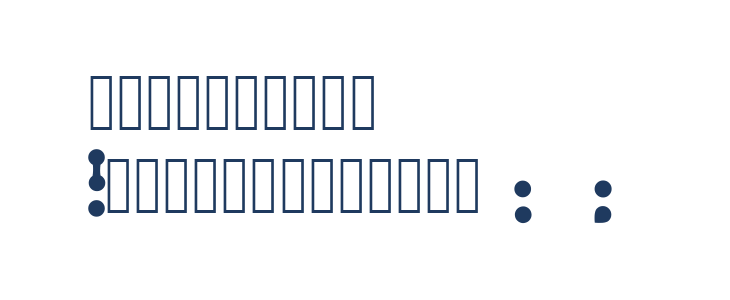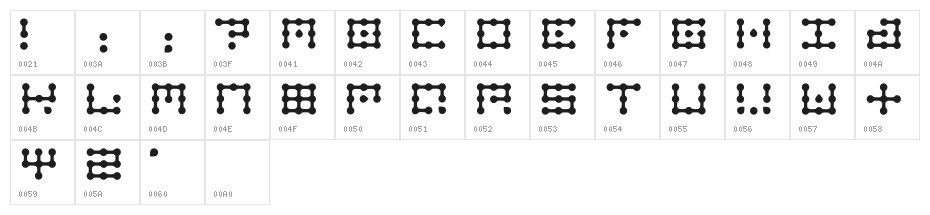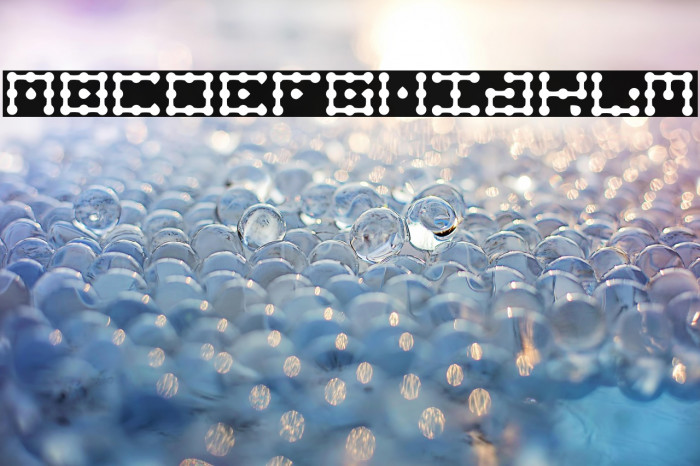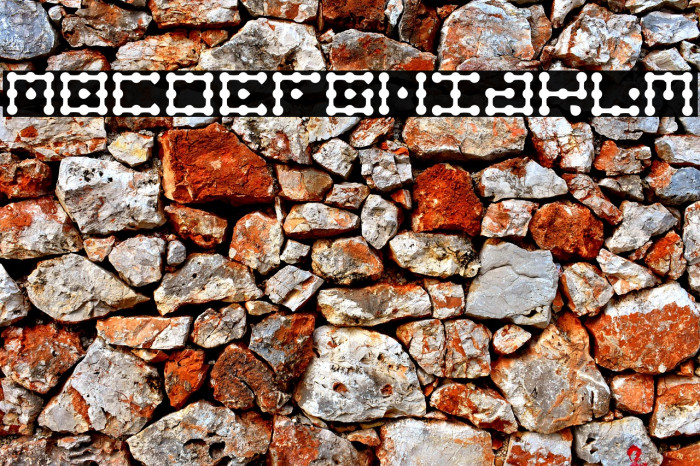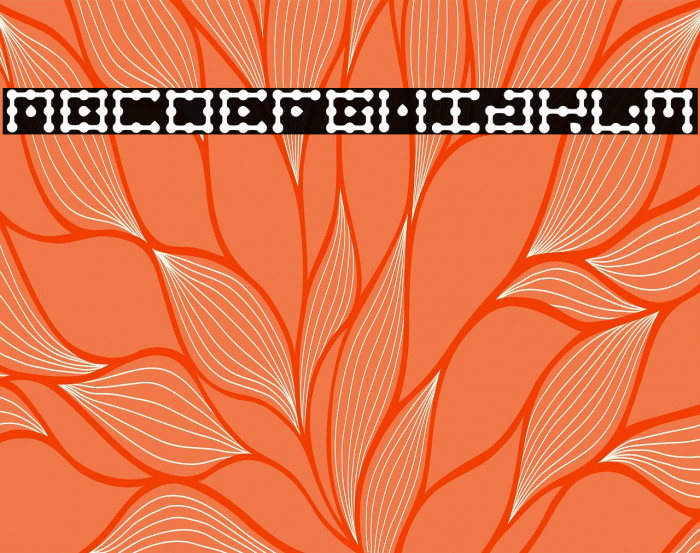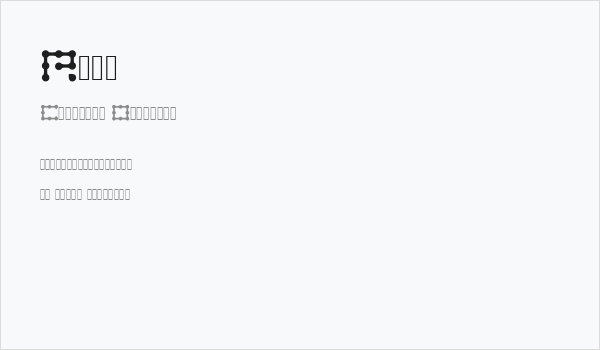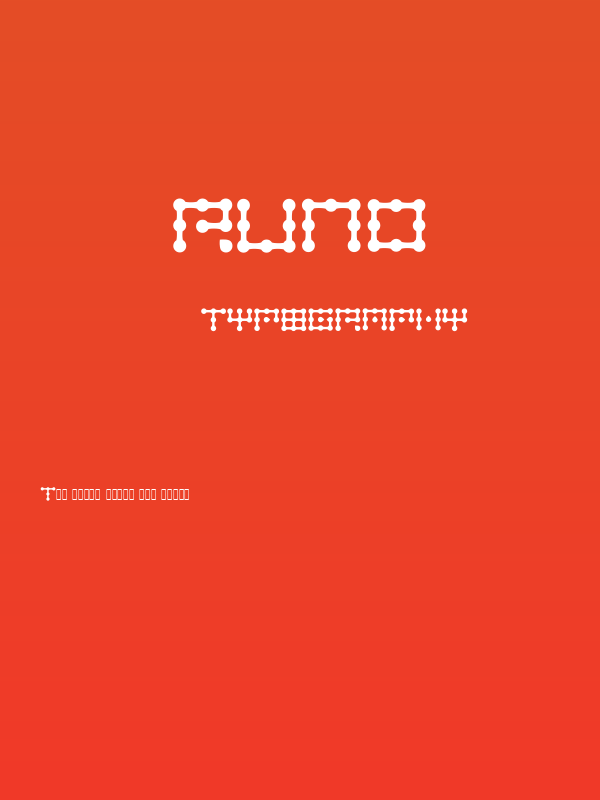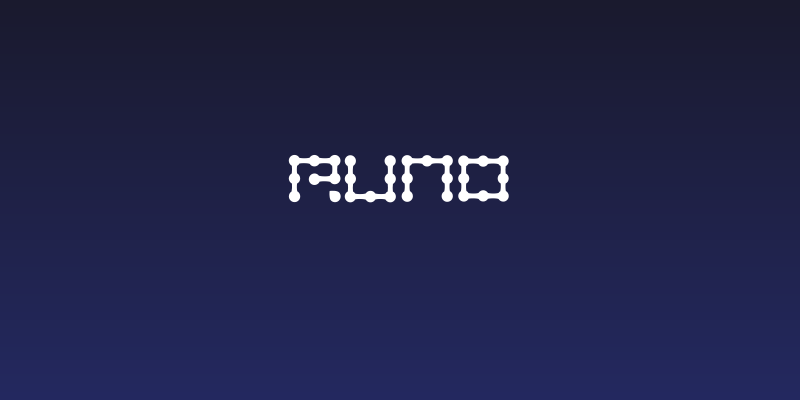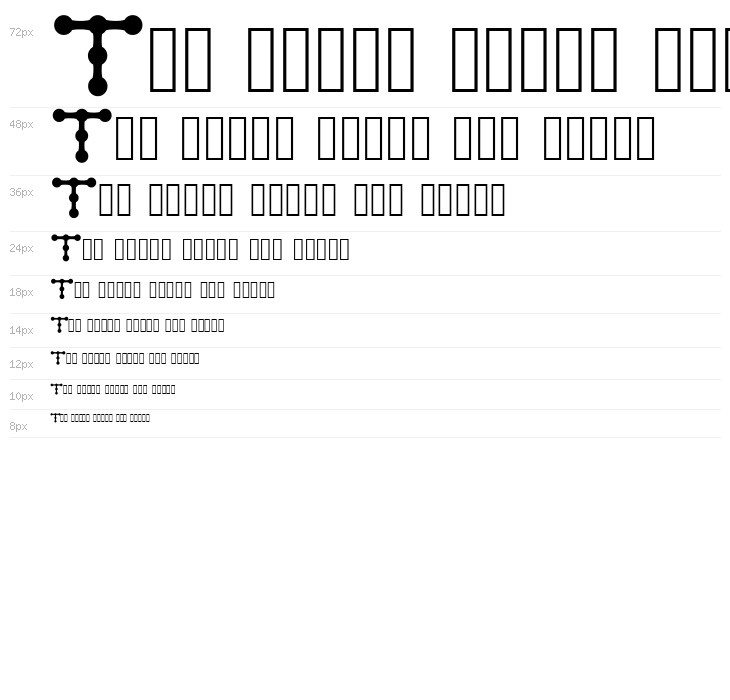
Rund Font
Rund Description
This font features a unique, decorative style characterized by its dot-matrix design. Each character is composed of small, evenly spaced circles that form the outlines of letters and numbers, creating a digital or retro aesthetic. The font maintains a consistent structure across all characters, providing a cohesive and uniform appearance. Its playful and distinctive look makes it ideal for creative projects that require a touch of nostalgia or a futuristic vibe. The font's geometric precision and uniformity in character height and width contribute to its modern appeal, while the dot pattern adds an element of texture and visual interest.
| Overall Style | Retro, Modern |
| Proposed Projects | Ideal for retro-themed designs, digital art projects, video game graphics, and creative branding. |